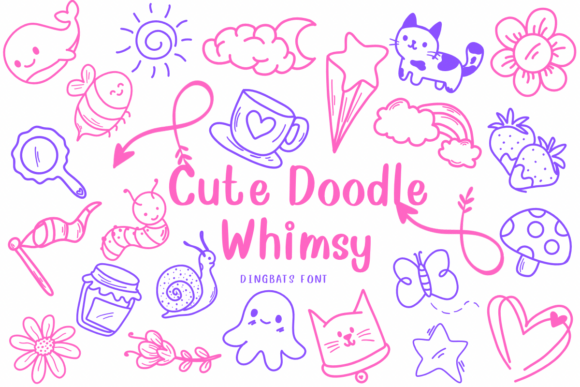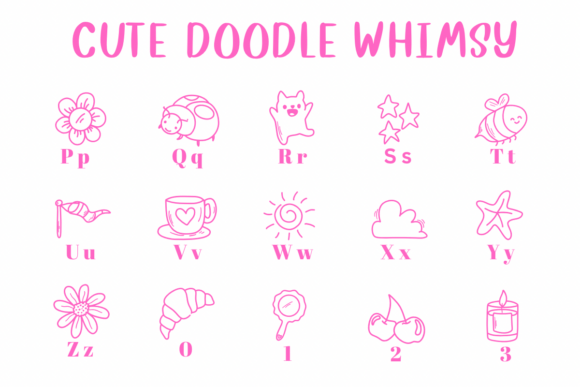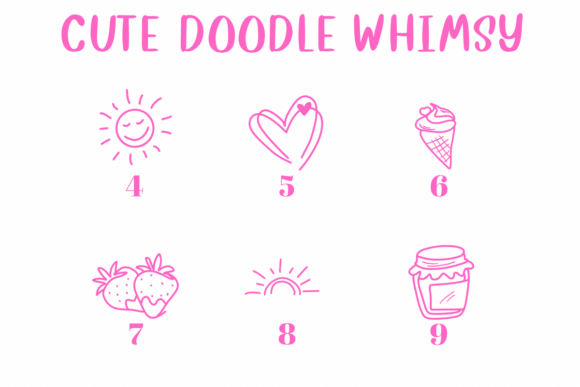
Cute Doodle Whimsy Font
About the Cute Doodle Whimsy Font
Let us introduce you to Cute Doodle Whimsy Font, where timeless design meets modern craftsmanship. Cute Doodle Whimsy is a dingbats font with an abstract theme. This font can enhance your creative projects such as wedding invitations, DIY, crafts, decorations, logos, and many other creative ideas.
Cute Doodle Whimsy excels in applications requiring a playful, lighthearted touch. It’s ideal for short headlines, logos for children’s products or whimsical brands, and decorative elements on packaging or invitations. However, its highly stylized nature makes it unsuitable for body text or UI elements where readability is paramount. Extended use would quickly become visually overwhelming.
This font’s friendly personality pairs well with clean sans-serif fonts like Open Sans for a balanced contrast, or with a more geometric sans-serif like Montserrat for a modern feel. A script font with a similarly informal feel could also work, offering a secondary layer of playful detail. Avoid pairing it with overly serious or formal typefaces.
The overall effect is best achieved in projects where a sense of fun and approachability is desired. Think children’s books, craft projects, or branding for a playful, creative business.
Cute Doodle Whimsy Font Usage Examples
Cute Doodle Whimsy Font Example